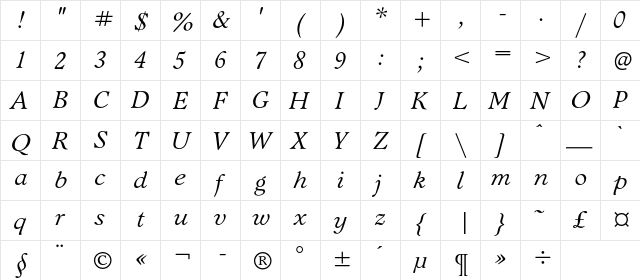
BannikovaC Italic
Design Context for BannikovaC Typeface
BannikovaC takes a measured approach to typography — its balanced proportions and neutral character make it a reliable workhorse for both digital and print work. Its italic angle brings a sense of urgency and motion to the letterforms.
Pro Tip: Use BannikovaC for emphasis, pull quotes, and subheadings where its slanted energy can add rhythm to the layout.